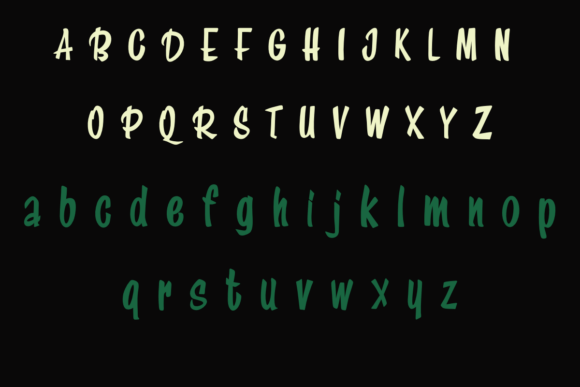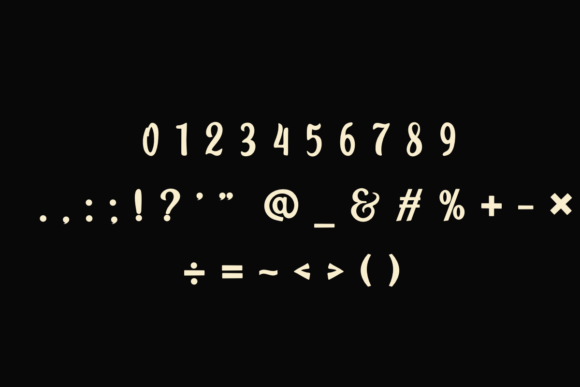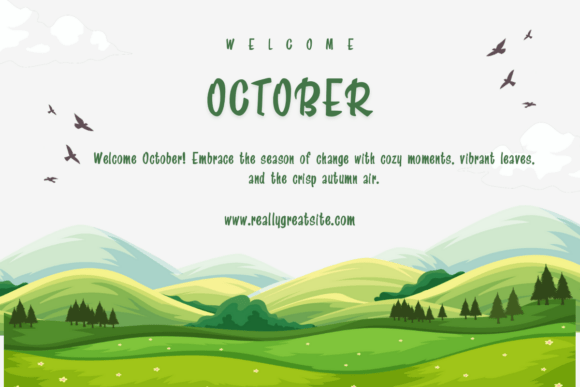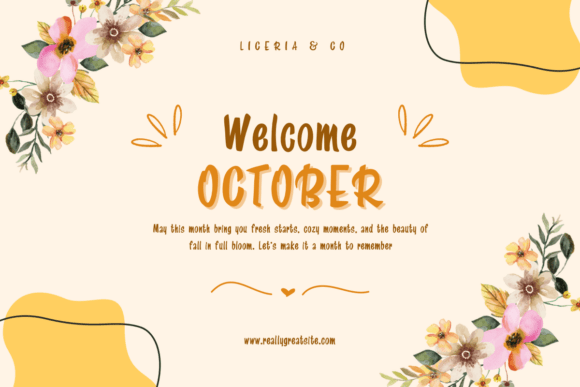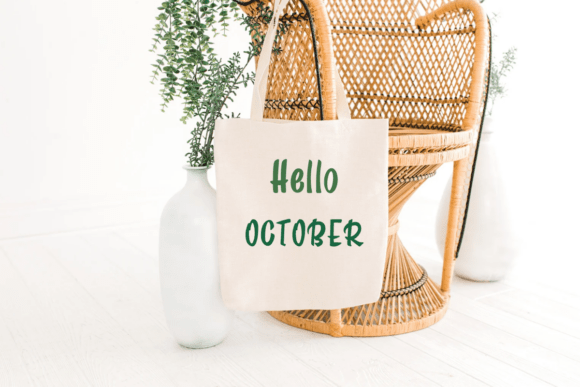
Introducing Cozy October: The Perfect Handwritten Font for Your Creative Projects
Are you a designer, crafter, or DIY enthusiast looking for a unique and charming font to add a personal touch to your creations? Look no further than Cozy October, a beautiful handwritten font that’s perfect for a variety of projects. In this article, we’ll explore the features and uses of Cozy October, and show you how to make the most of this versatile font.
What is Cozy October?
Cozy October is a handwritten font that’s designed to evoke a sense of warmth and coziness. With its flowing script and whimsical feel, this font is perfect for adding a personal touch to your writing and designs. Whether you’re taking notes, writing a diary, or creating greeting cards, Cozy October is the perfect choice.
Uses for Cozy October
While Cozy October is perfect for writing and note-taking, its uses don’t stop there. This versatile font can be used for a wide range of creative projects, including:
- Banners: Create eye-catching banners for your blog, social media, or marketing materials with Cozy October.
- Content: Add a personal touch to your blog posts, articles, or website content with this charming font.
- Mugs: Design custom mugs with Cozy October for a unique and thoughtful gift.
- Cards: Create beautiful greeting cards for special occasions, such as birthdays, holidays, or weddings.
- Shirts: Design custom t-shirts, hoodies, or tote bags with Cozy October for a stylish and personalized look.
- Stationery: Add a touch of elegance to your stationery, including notebooks, journals, or letterheads.
- Social Media Posts: Make your social media posts stand out with Cozy October, perfect for Instagram, Facebook, or Twitter.
Why Choose Cozy October?
So why choose Cozy October over other fonts? Here are just a few reasons:
- Unique and Handwritten: Cozy October is a one-of-a-kind, handwritten font that adds a personal touch to your designs.
- Easy to Read: Despite its whimsical feel, Cozy October is easy to read, making it perfect for body text or captions.
- Versatile: Cozy October can be used for a wide range of projects, from digital designs to print materials.
- High-Quality: Cozy October is a high-quality font that’s designed to produce crisp, clear results.
Tips for Using Cozy October
Here are a few tips for getting the most out of Cozy October:
- Experiment with Sizes: Cozy October looks great in a variety of sizes, from small captions to large headings.
- Mix and Match: Combine Cozy October with other fonts for a unique and interesting look.
- Use it for Headers: Cozy October is perfect for headers, titles, or subtitles, adding a touch of elegance to your designs.
- Add a Personal Touch: Use Cozy October to add a personal touch to your designs, making them more relatable and engaging.
In conclusion, Cozy October is a beautiful, handwritten font that’s perfect for designers, crafters, and DIY enthusiasts. With its unique feel, versatility, and high-quality design, Cozy October is the perfect choice for a wide range of creative projects. Whether you’re taking notes, creating greeting cards, or designing banners, Cozy October is sure to add a touch of warmth and coziness to your creations.